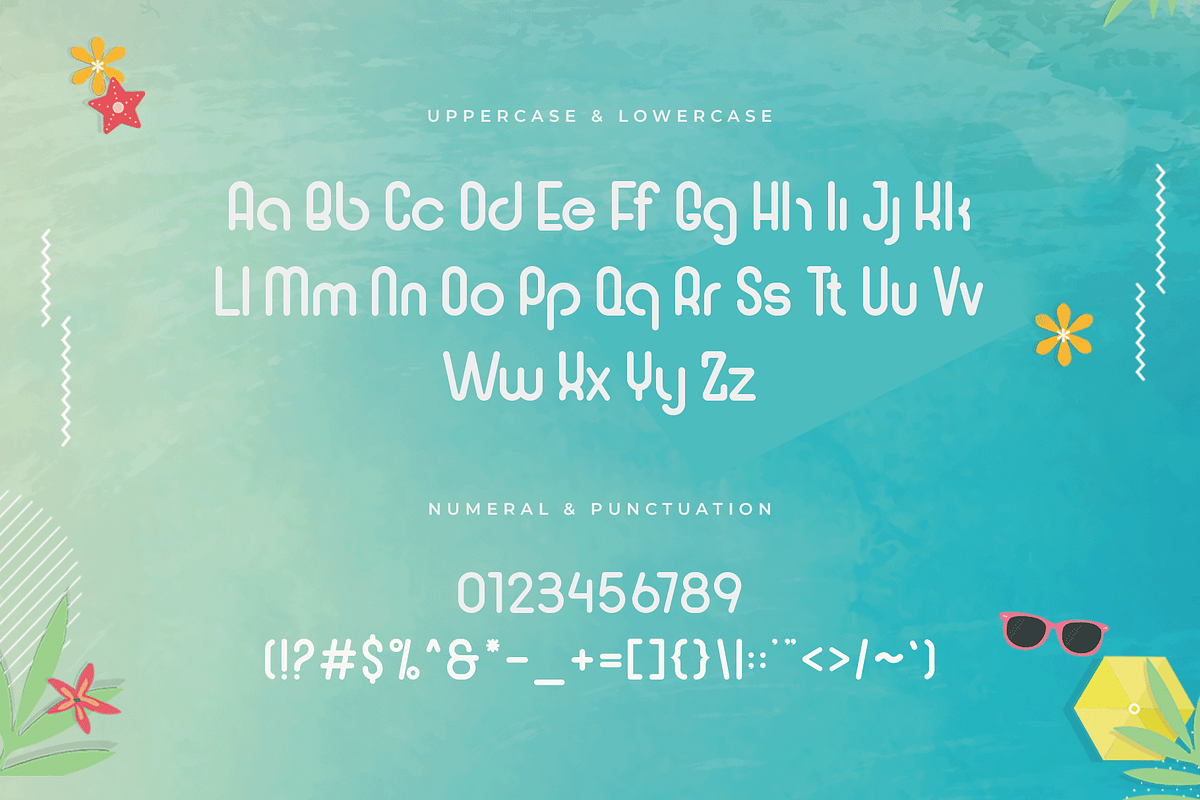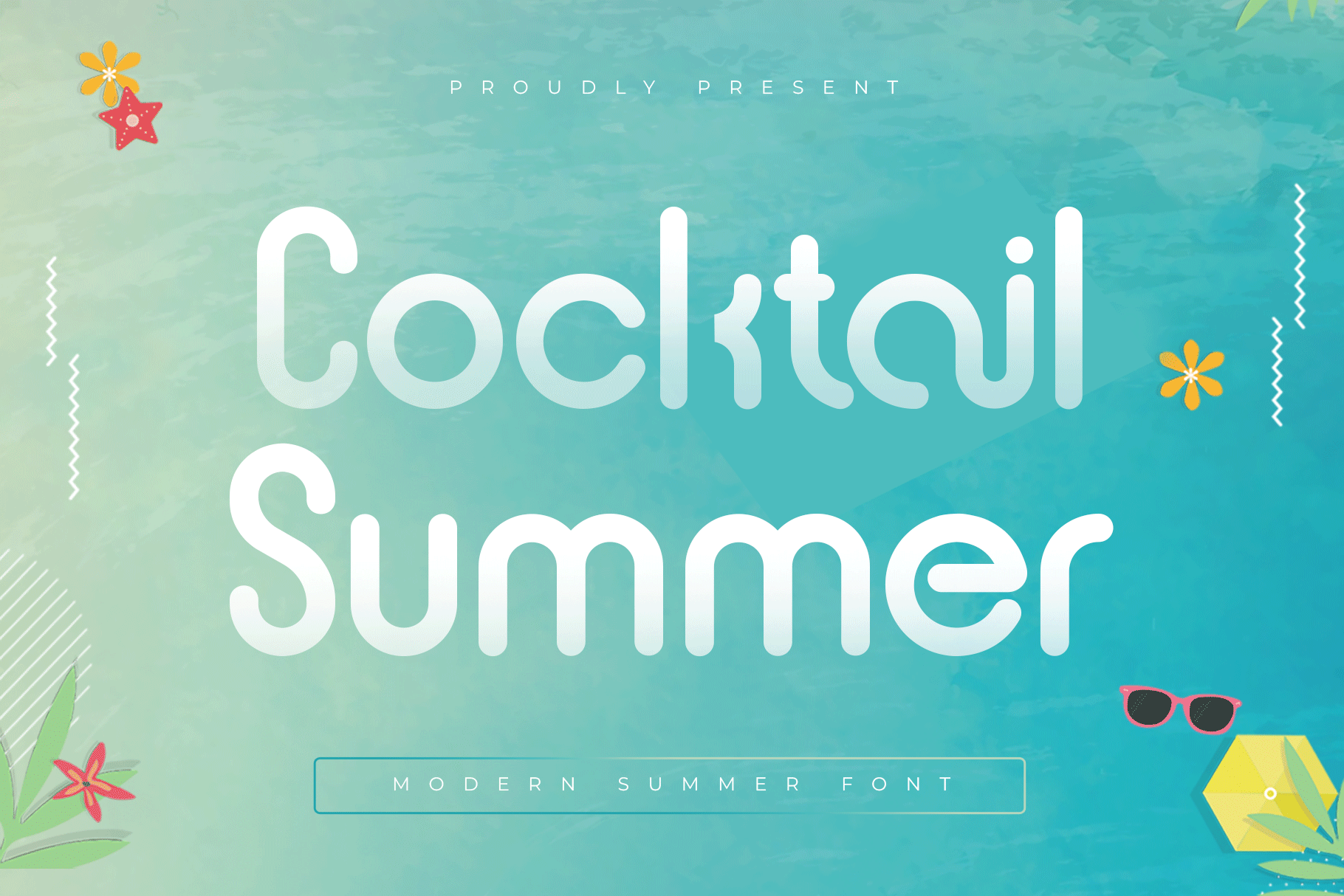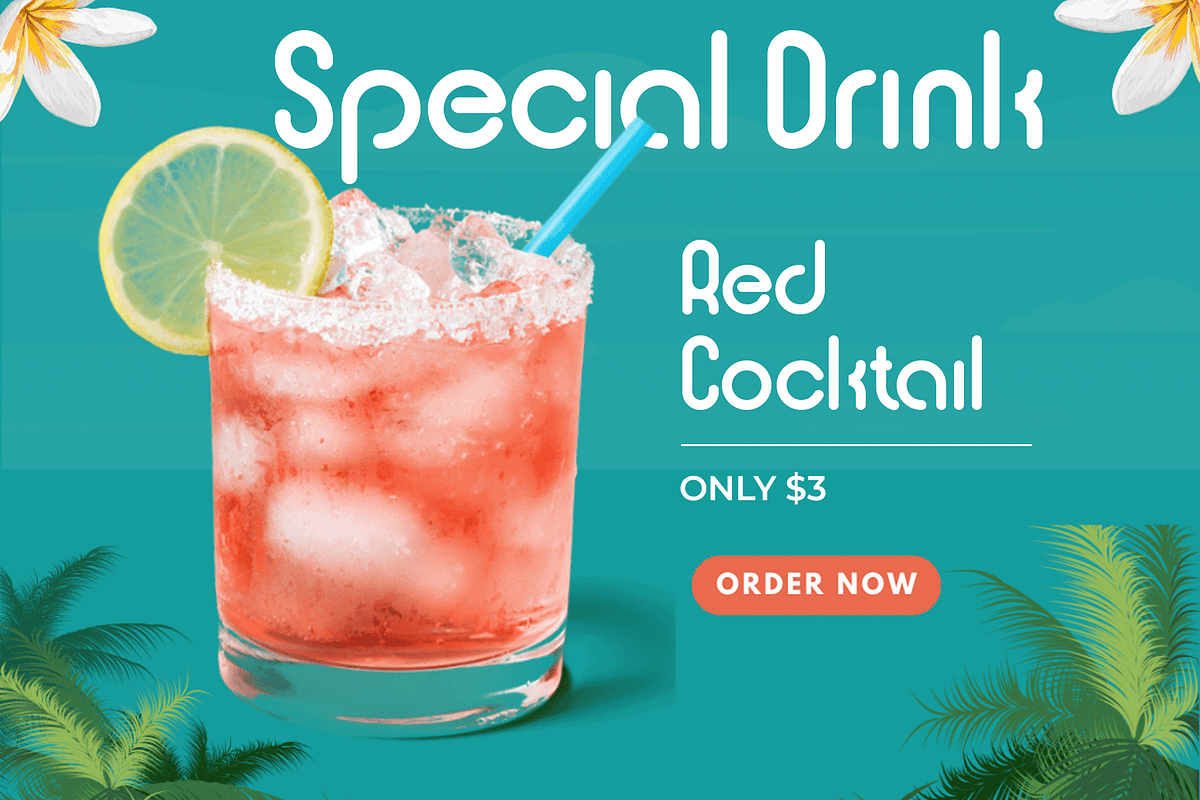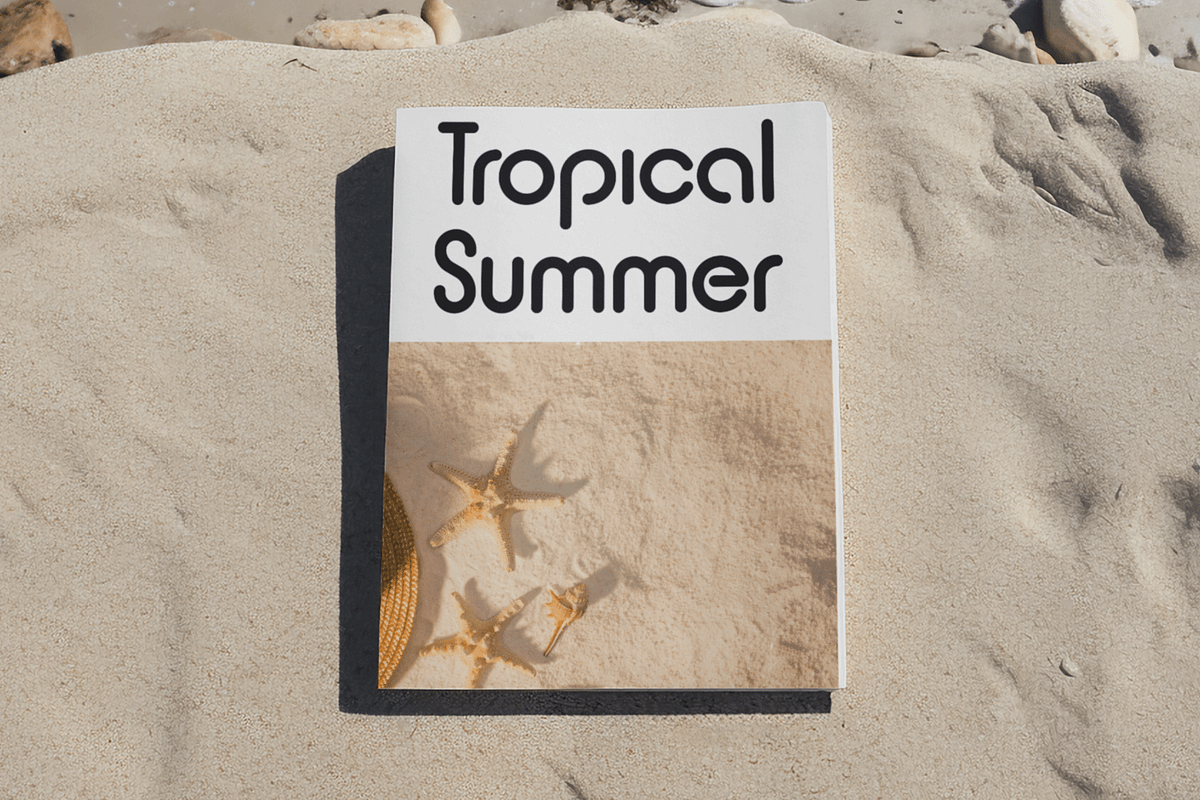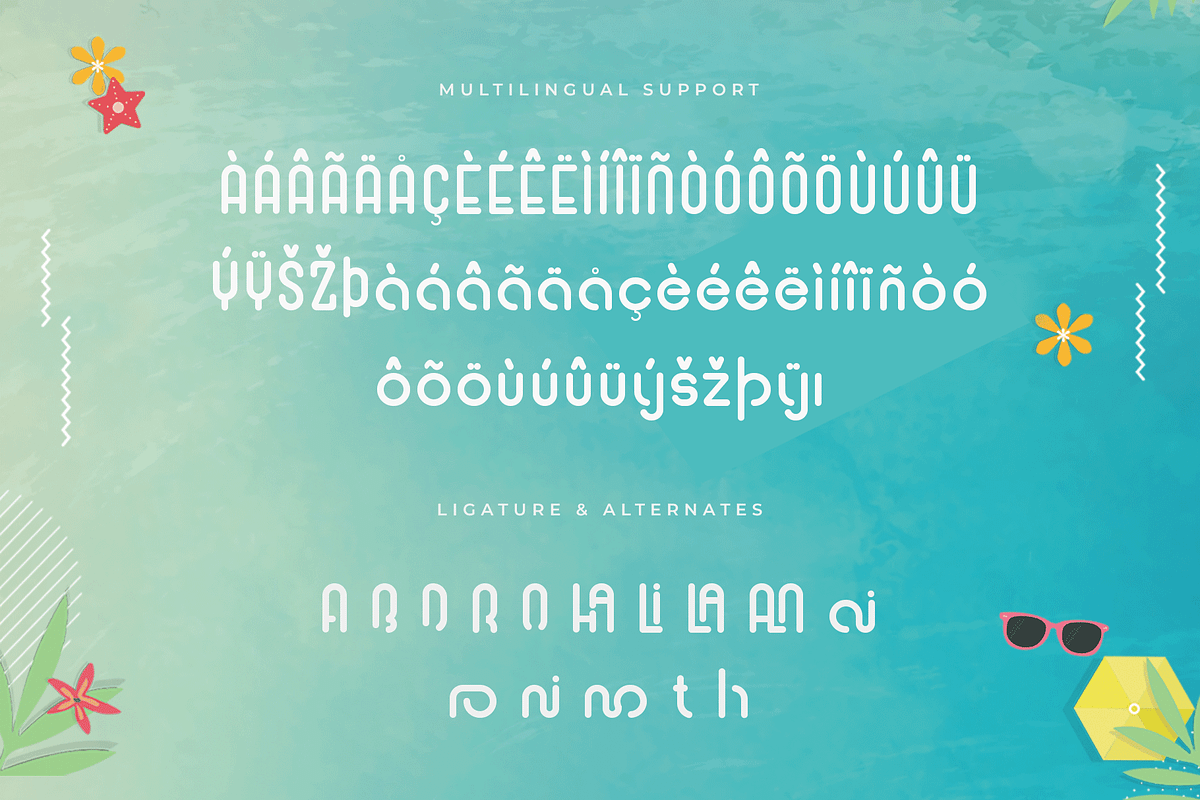
Cocktail Summer – Modern Summer Font
Introducing Cocktail Summer, a modern summer font that radiates sunshine, fun, and vibrant energy. Inspired by tropical vibes, beach days, and refreshing cocktails, this font brings a cheerful, laid-back feel to any design project.
Cocktail Summer features bold, rounded letterforms with a playful flow, making it ideal for summer event posters, holiday merchandise, travel blogs, party invitations, branding, and social media content. Its easygoing yet stylish character ensures your designs feel fresh, inviting, and full of life.
Whether you’re crafting sunny promo materials or adding a splash of fun to your brand, Cocktail Summer is your go-to font for warm, modern, and joyful designs.